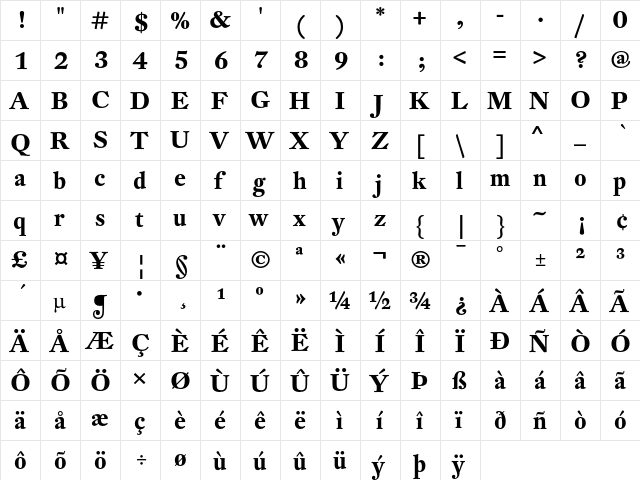
DTL Fleischmann Display Bold Font Preview
DTL Fleischmann Display Bold
DTL Fleischmann Display Bold Font Details
Design Context for DTL Fleischmann Display Typeface
DTL Fleischmann Display is built around its visual character rather than neutral utility — its distinctive forms are designed to make an impression at display sizes. The heavy weight commands attention and anchors typographic hierarchies.
Font Pairing: Pair with a clean neutral sans-serif for body copy to let DTL Fleischmann Display's character lead without overwhelming the composition.
Pro Tip: Use DTL Fleischmann Display exclusively at display sizes — it was designed to be seen, not read at length. Let a neutral companion handle body copy.